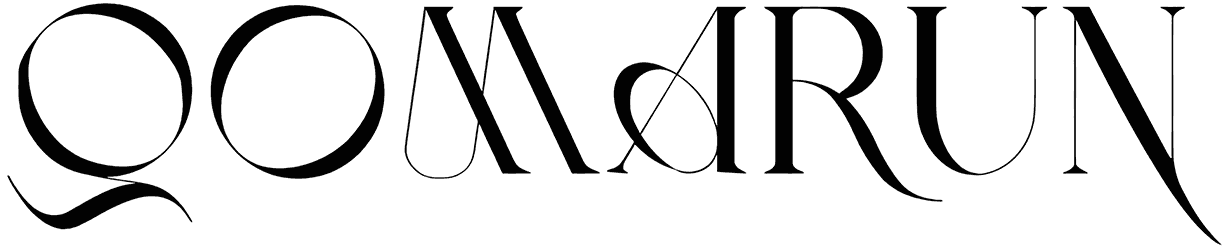
Qomarun Font
If you want to go out of your way to impress the viewers but also have the option to keep things simple, Qomarun is for you. It’s available as a luxury serif font with no lowercase but a backup set of capitals that look…
If you want to go out of your way to impress the viewers but also have the option to keep things simple, Qomarun is for you. It’s available as a luxury serif font with no lowercase but a backup set of capitals that look even more spectacular in their unique design.
Haven’t you always wanted your luxury fonts to be second to none? Then just turn Qomarun into fashion logos or restaurant signs and you’ll see what we’re talking about.